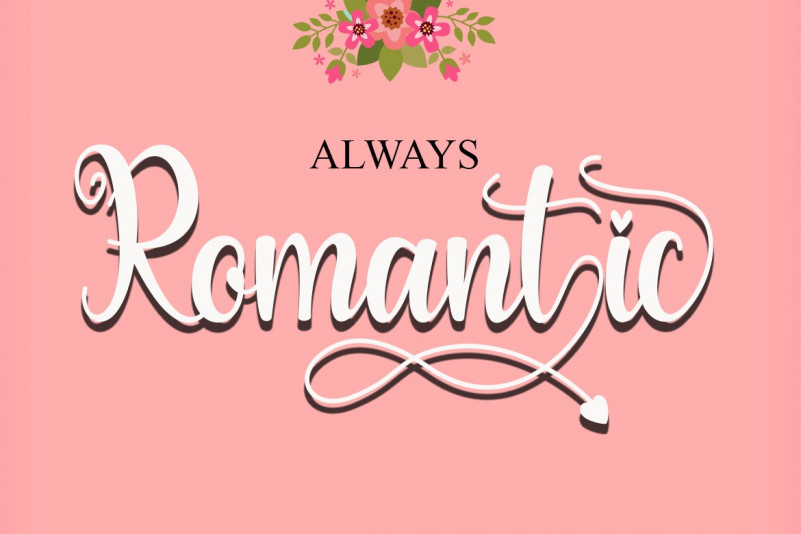
Valentine Moment Calligraphy Font
Valentine Moment is a script font that can be described to have an elegant touch and is just perfect for your favorite projects. This font is PUA encoded which means you can access the available glyphs and swashes with ease!